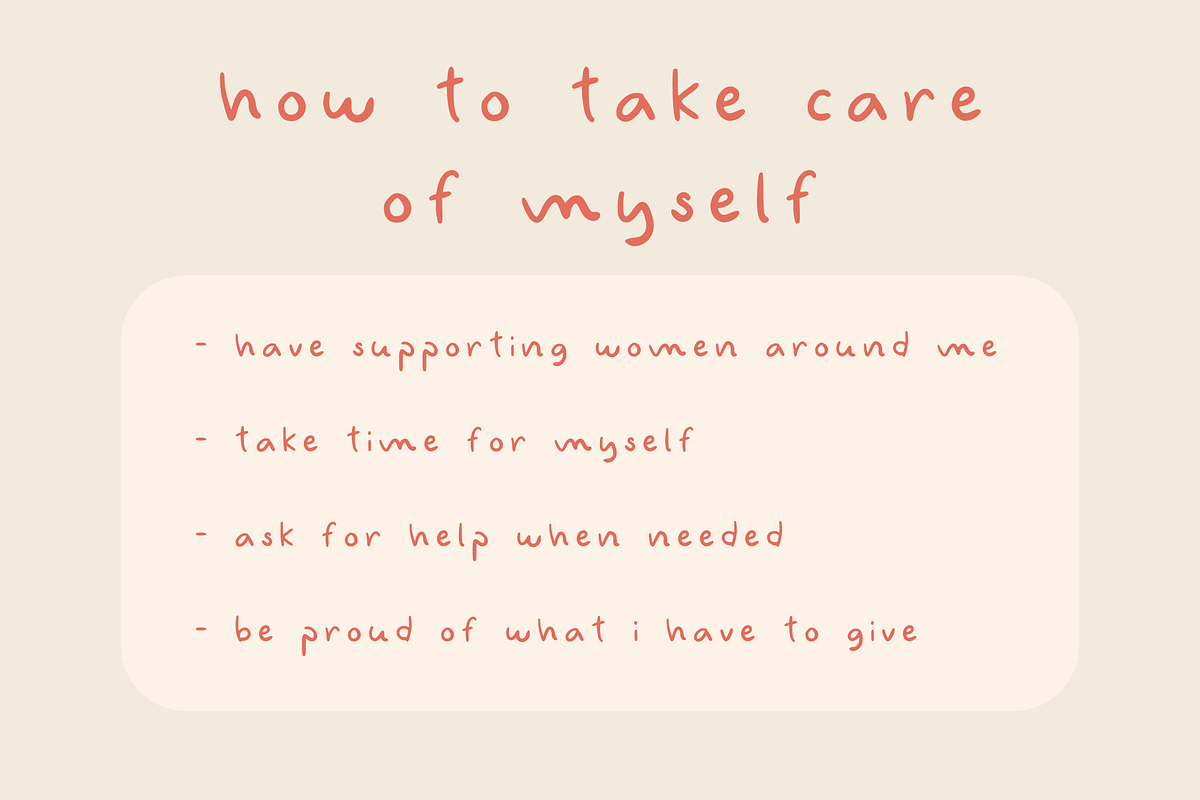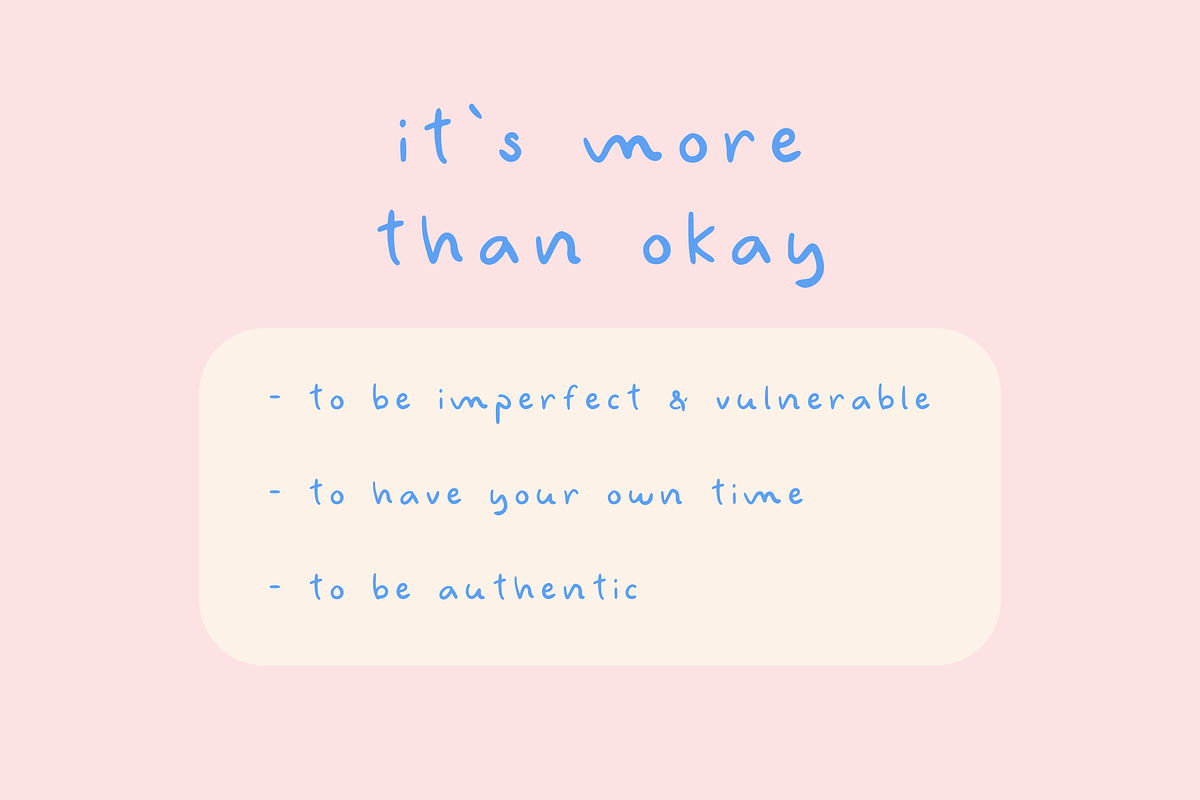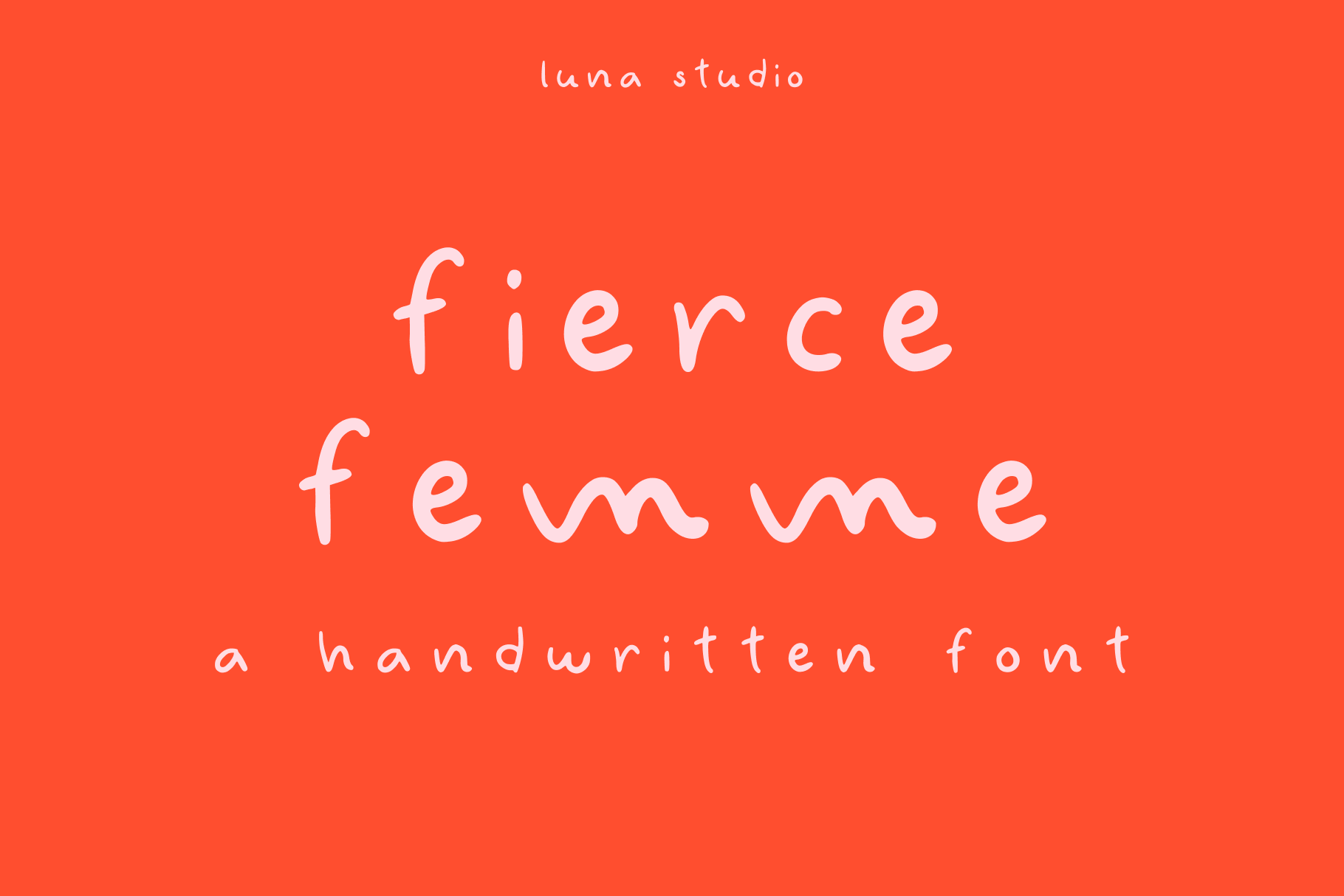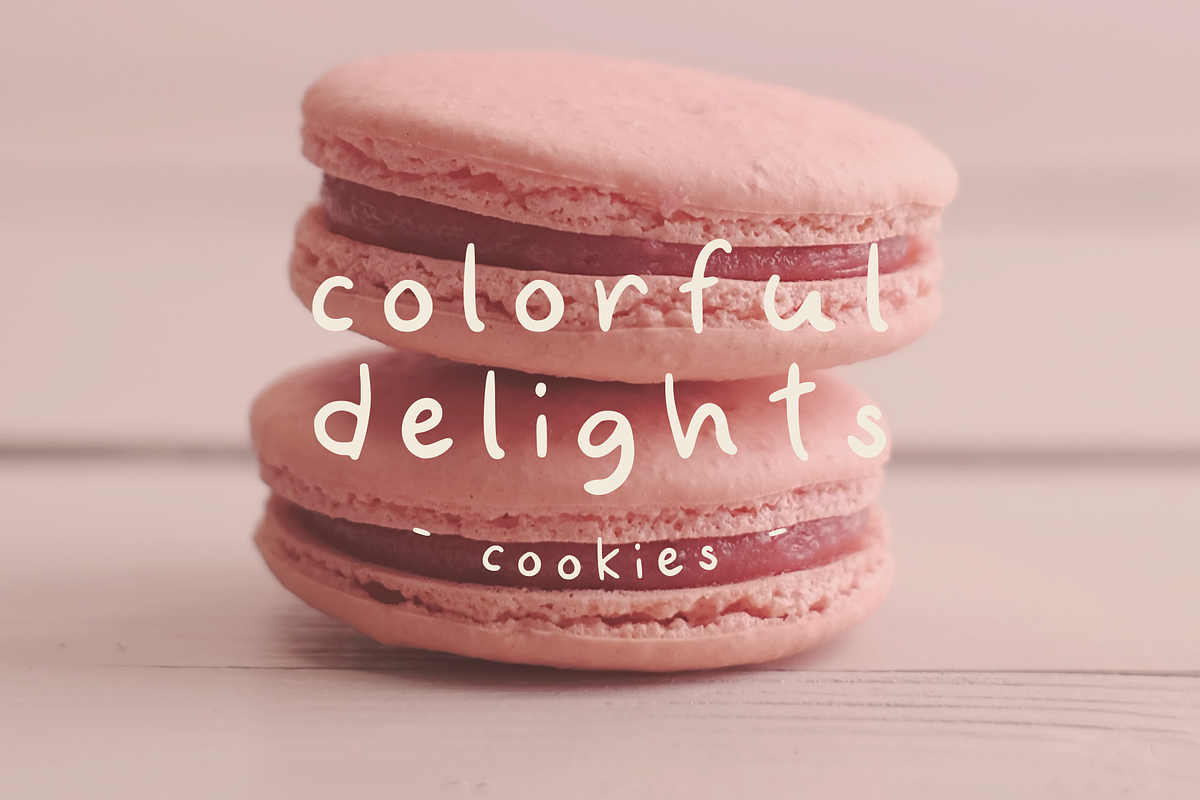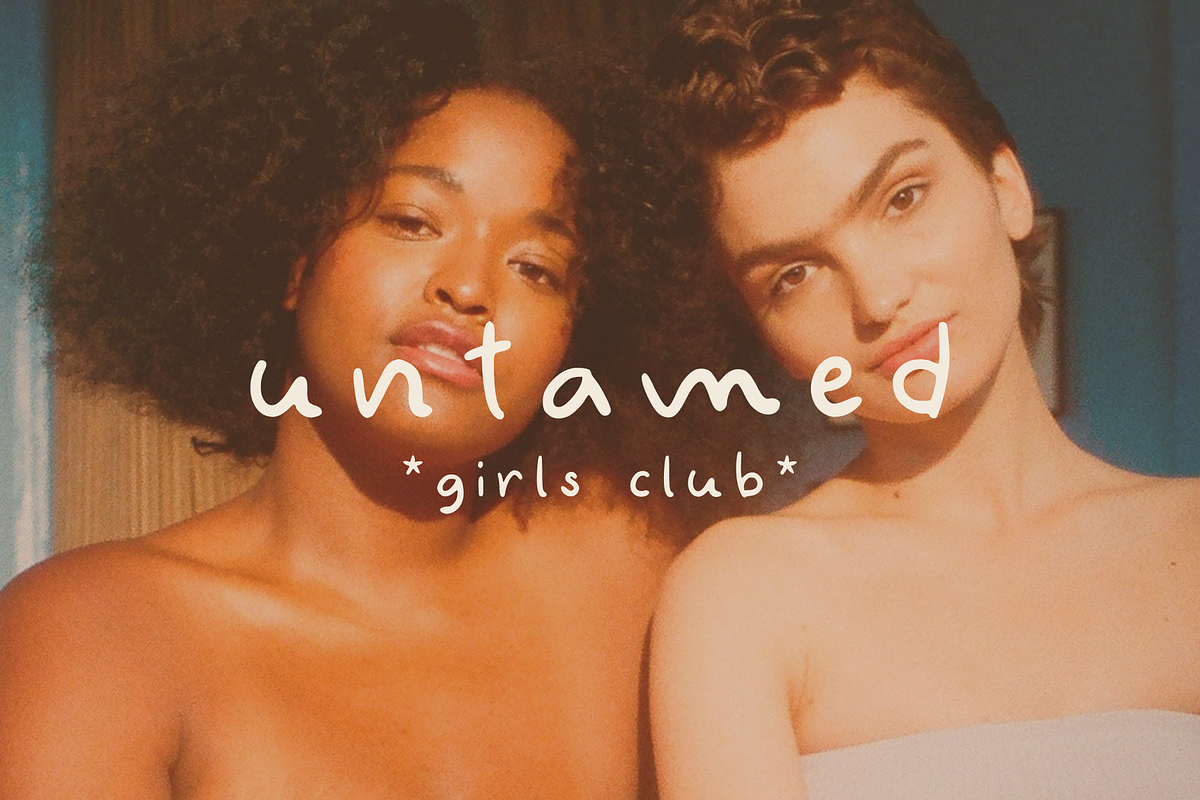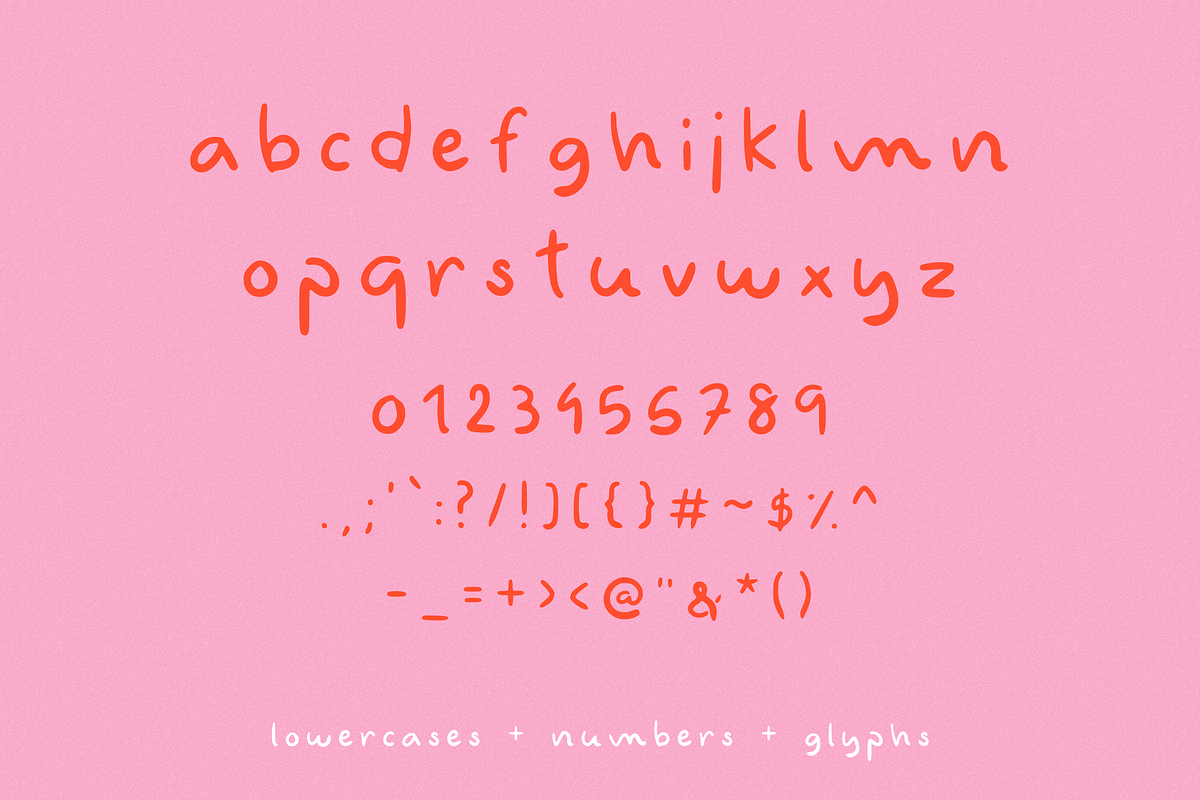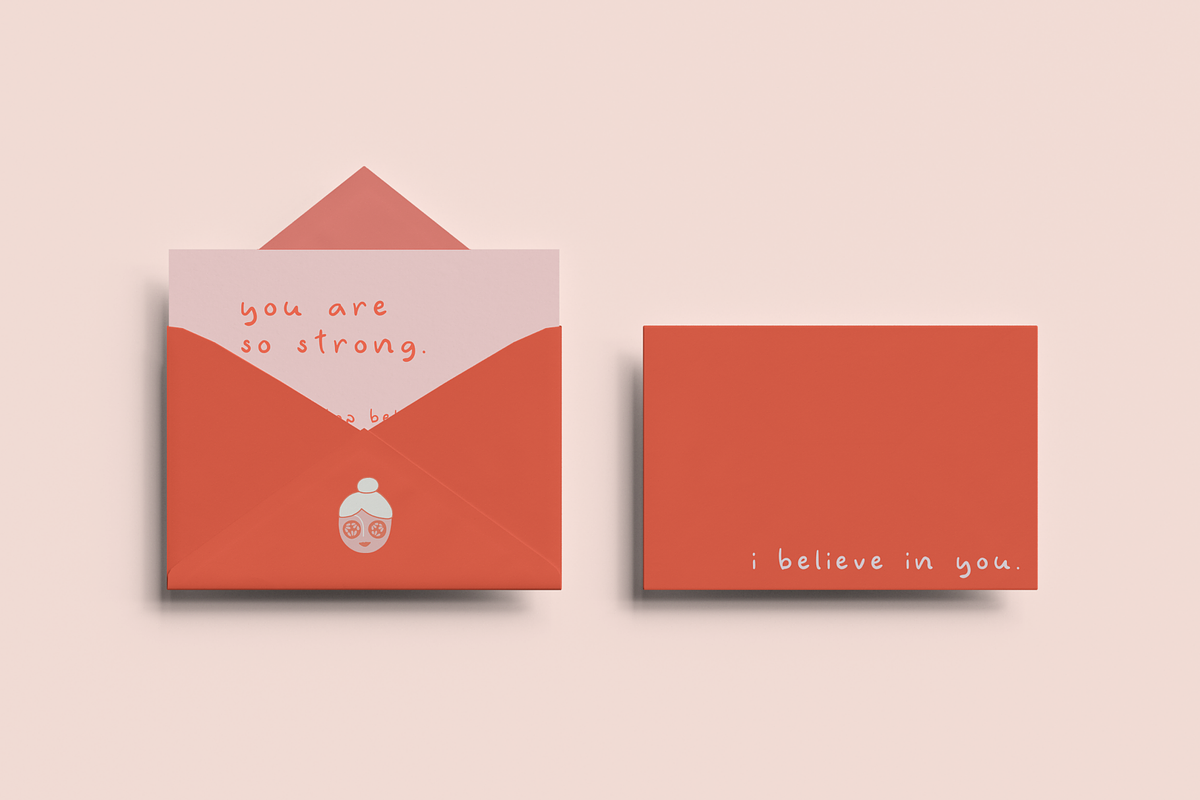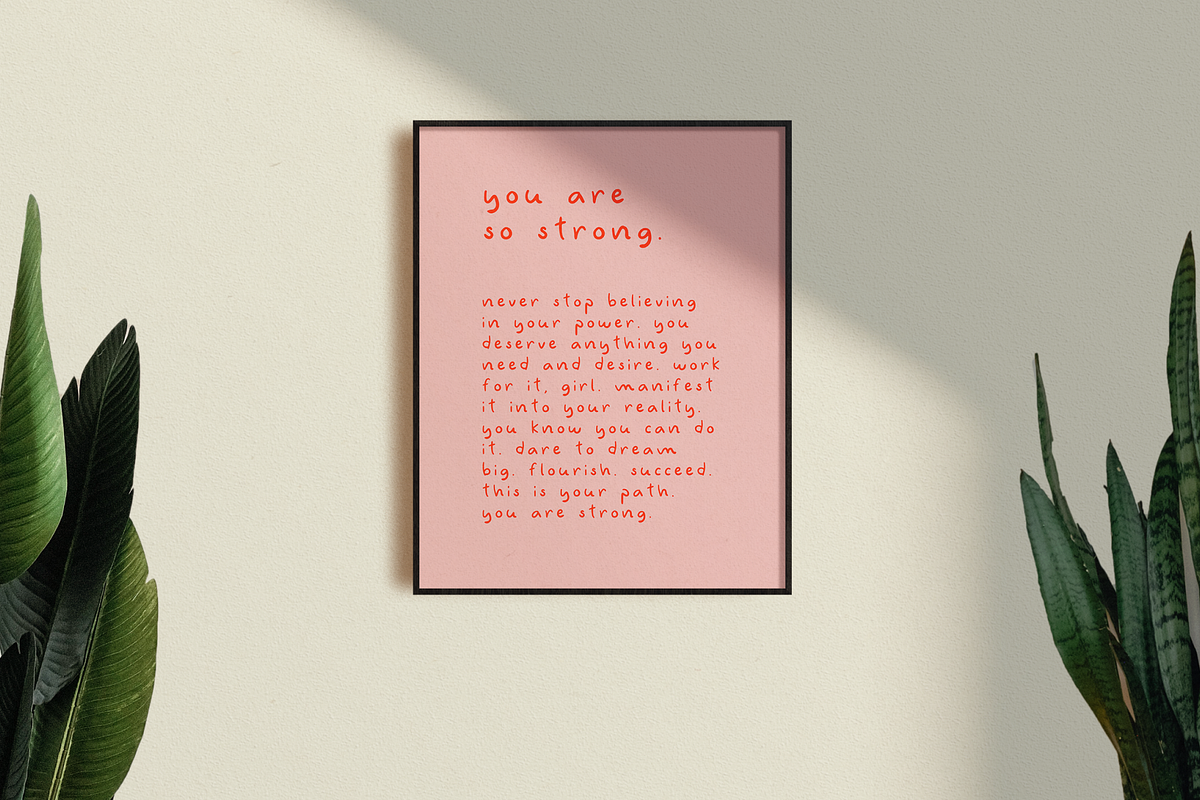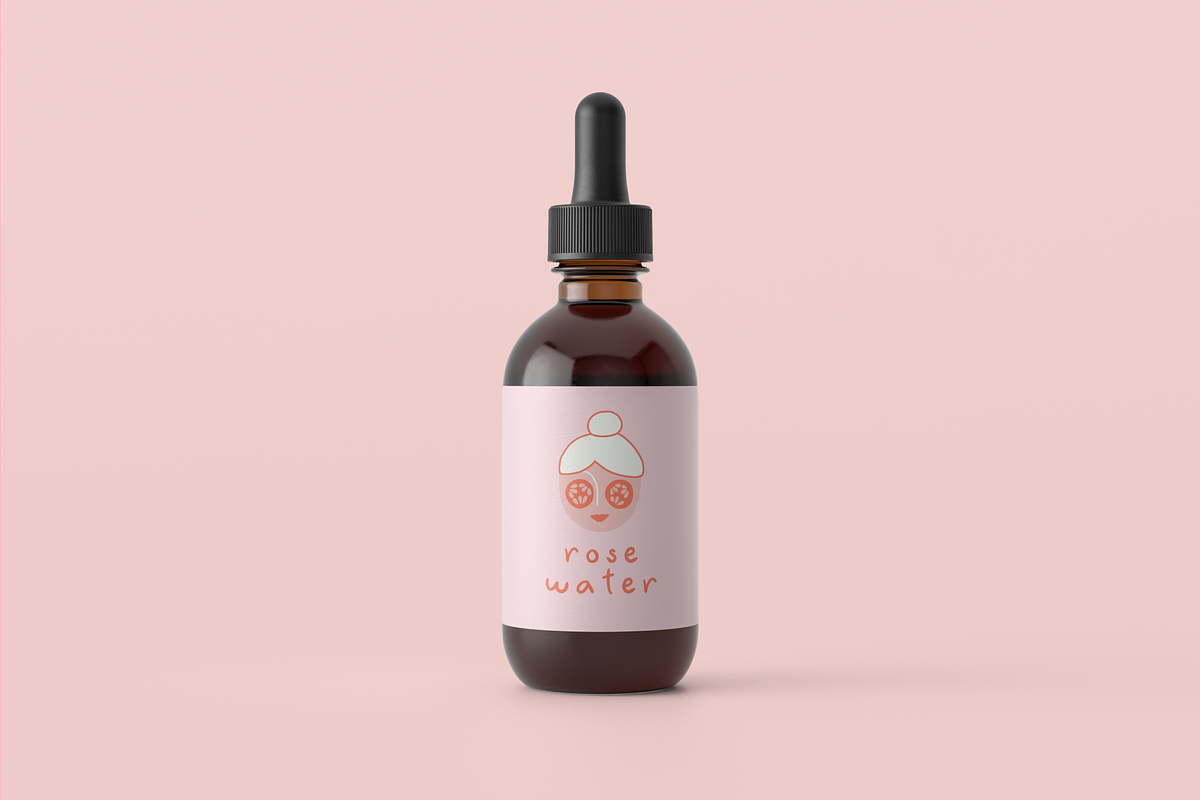
Fierce Femme | Handwritten Font
Fierce Femme for the strong woman in you!
This is my third illustrated font!
I’ve created each letter by hand in Procreate & turned it into a beautiful & feminine handwritten font.
It works wonders with:
- Greeting cards
- Quotes
- Branding
- Logo
It includes:
- Lowercases, numbers & glyphs